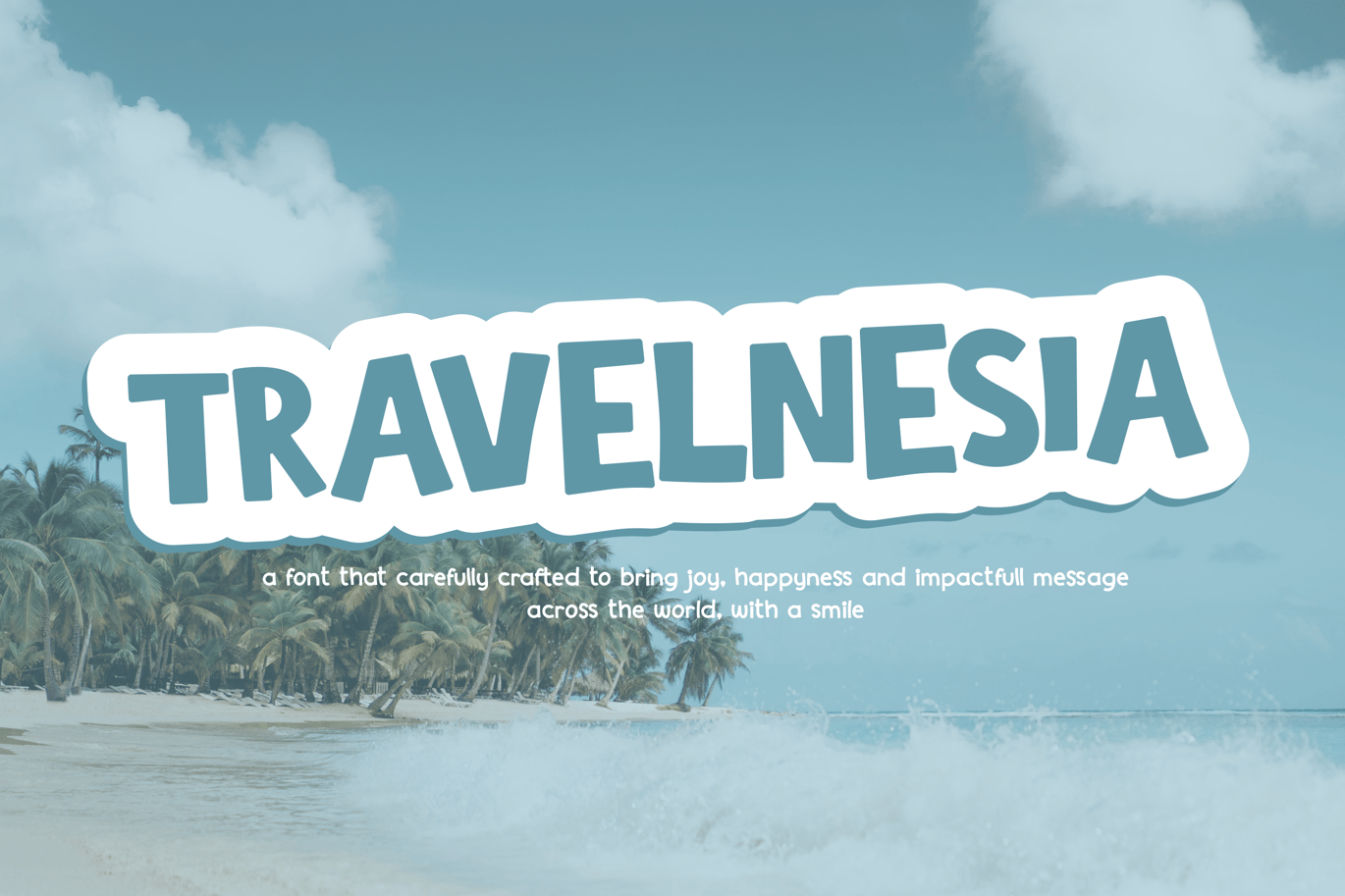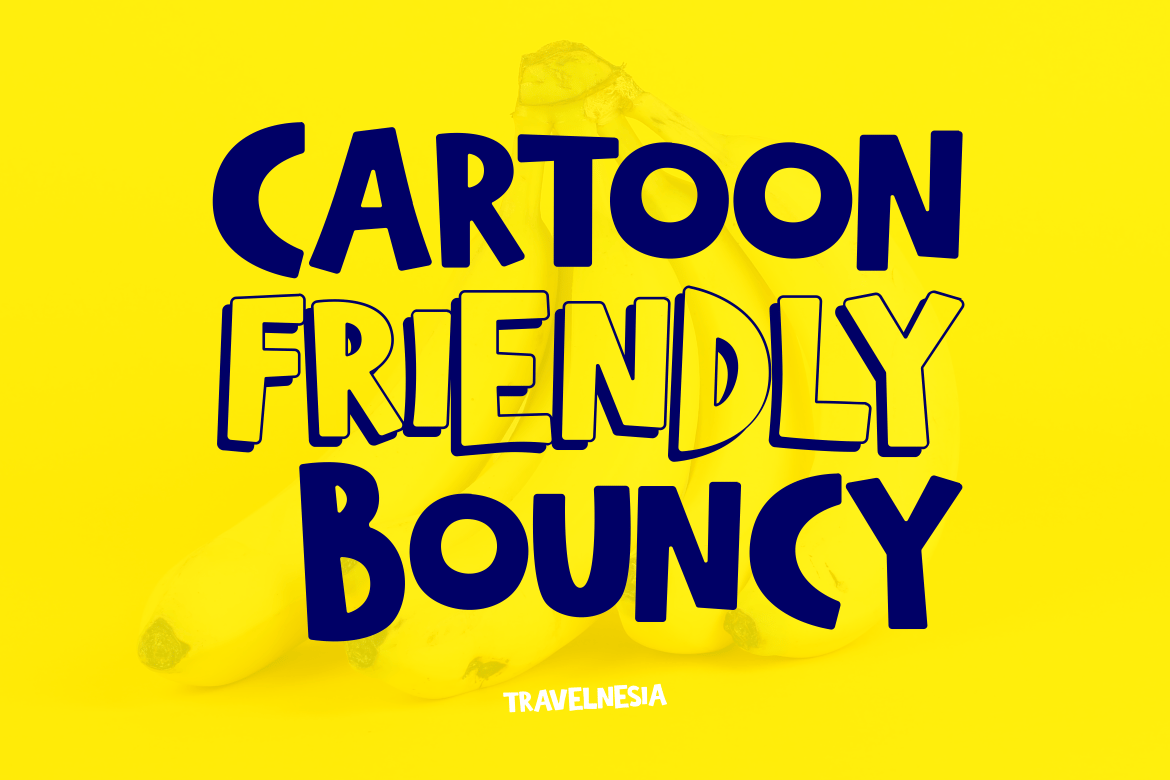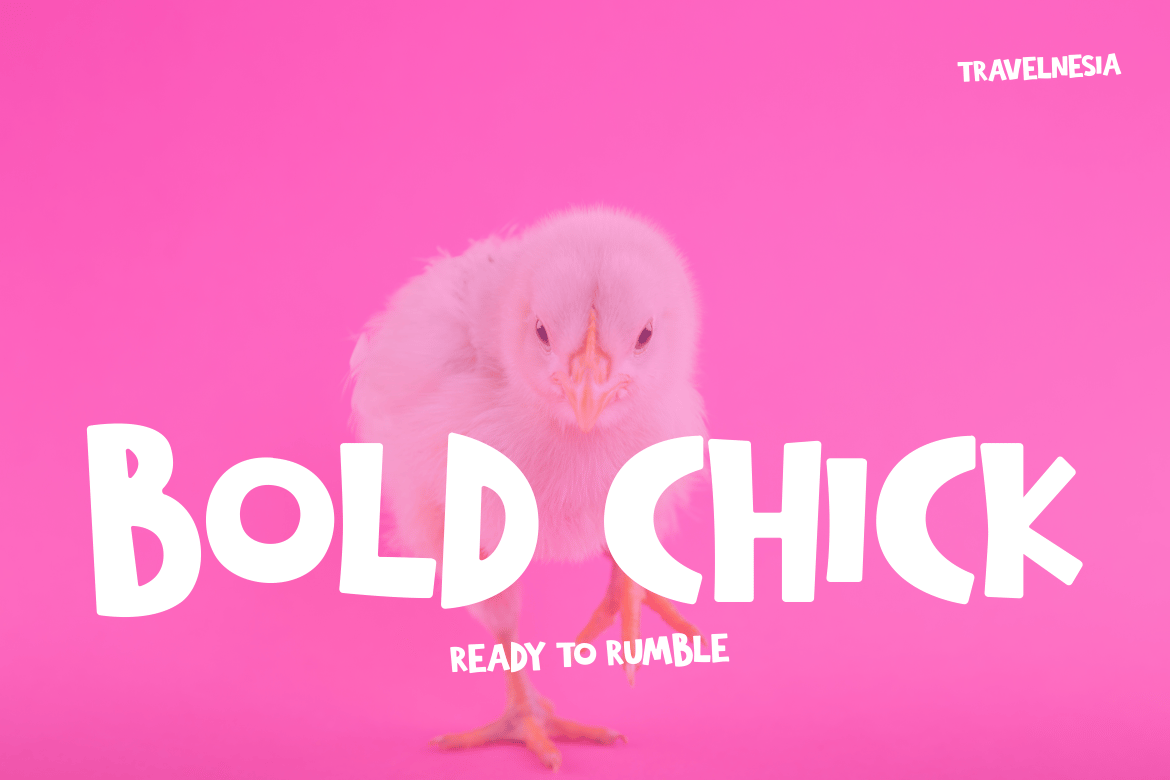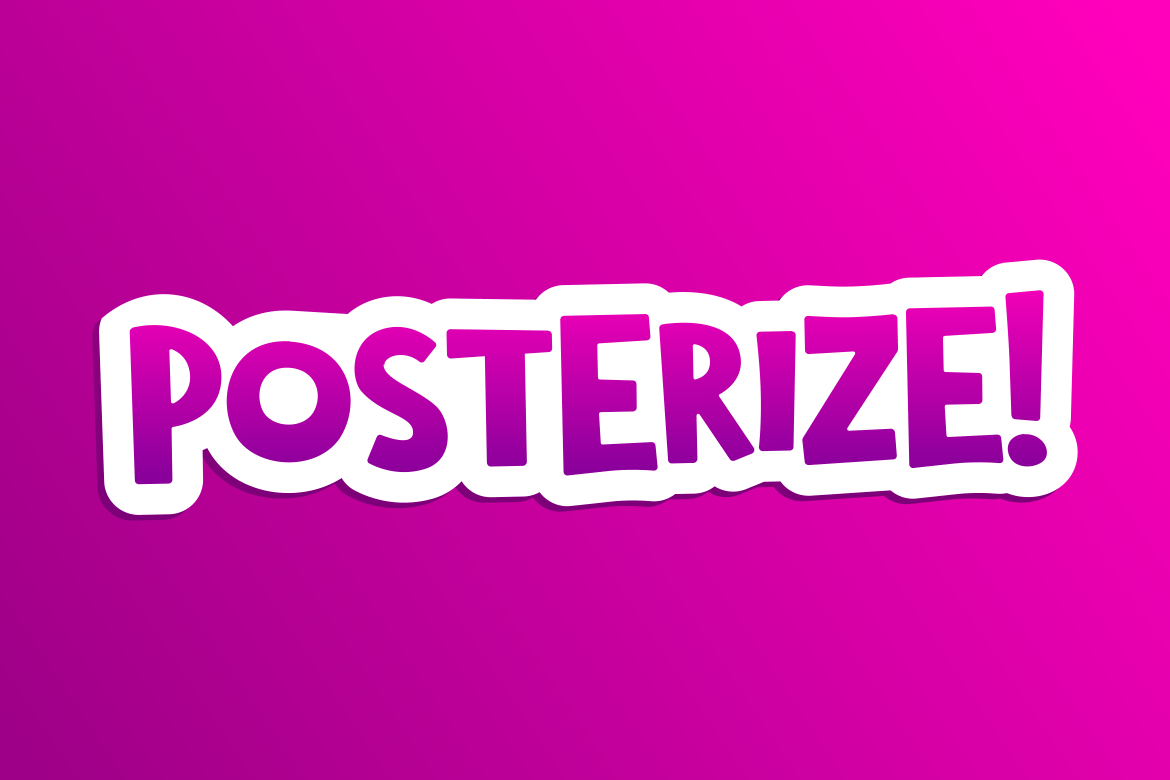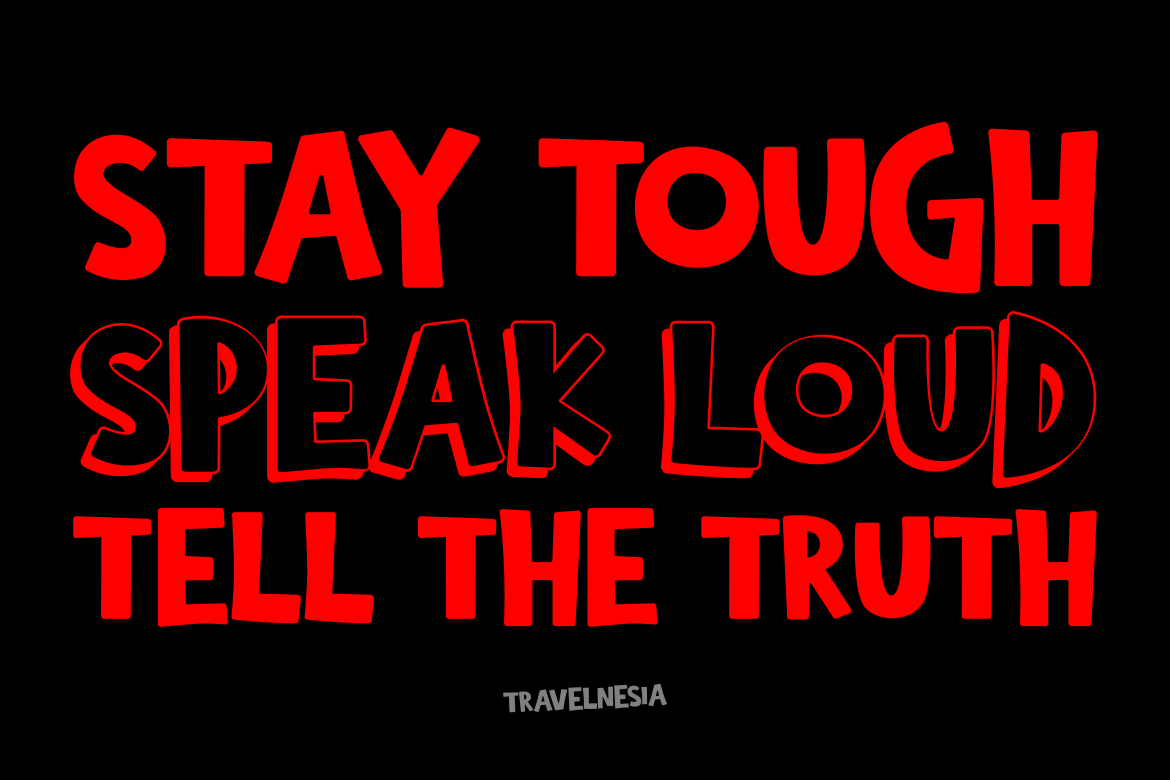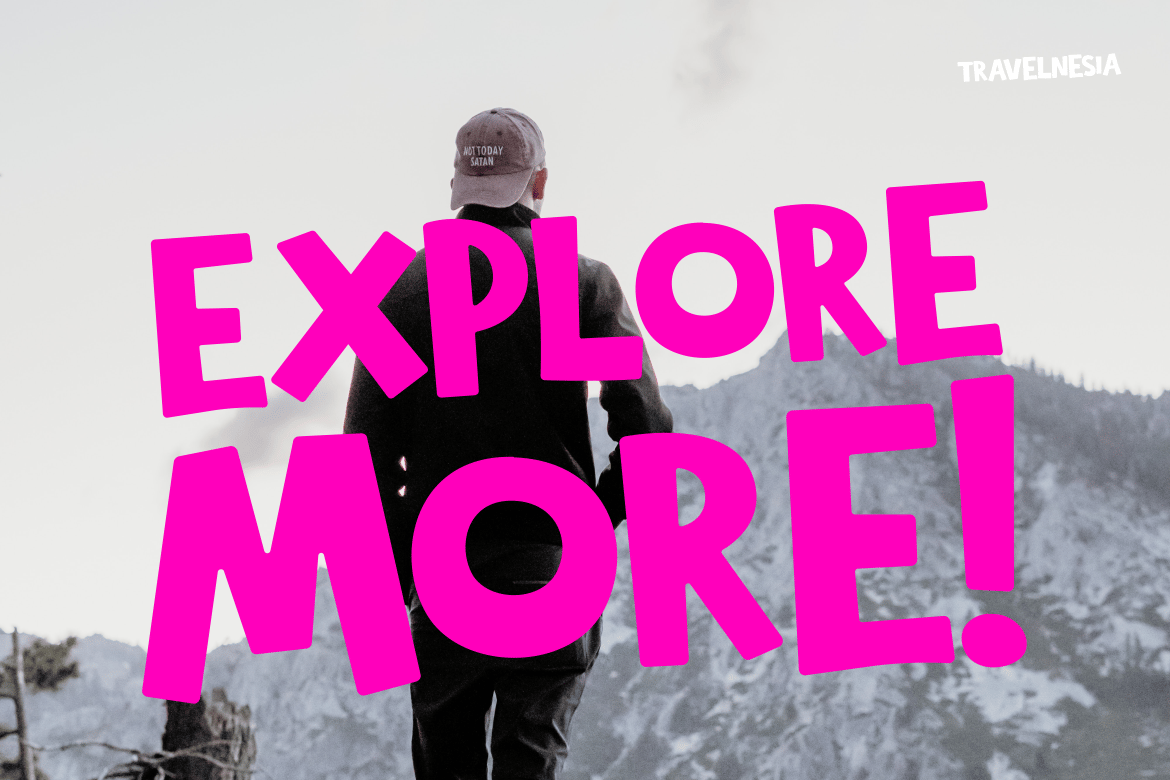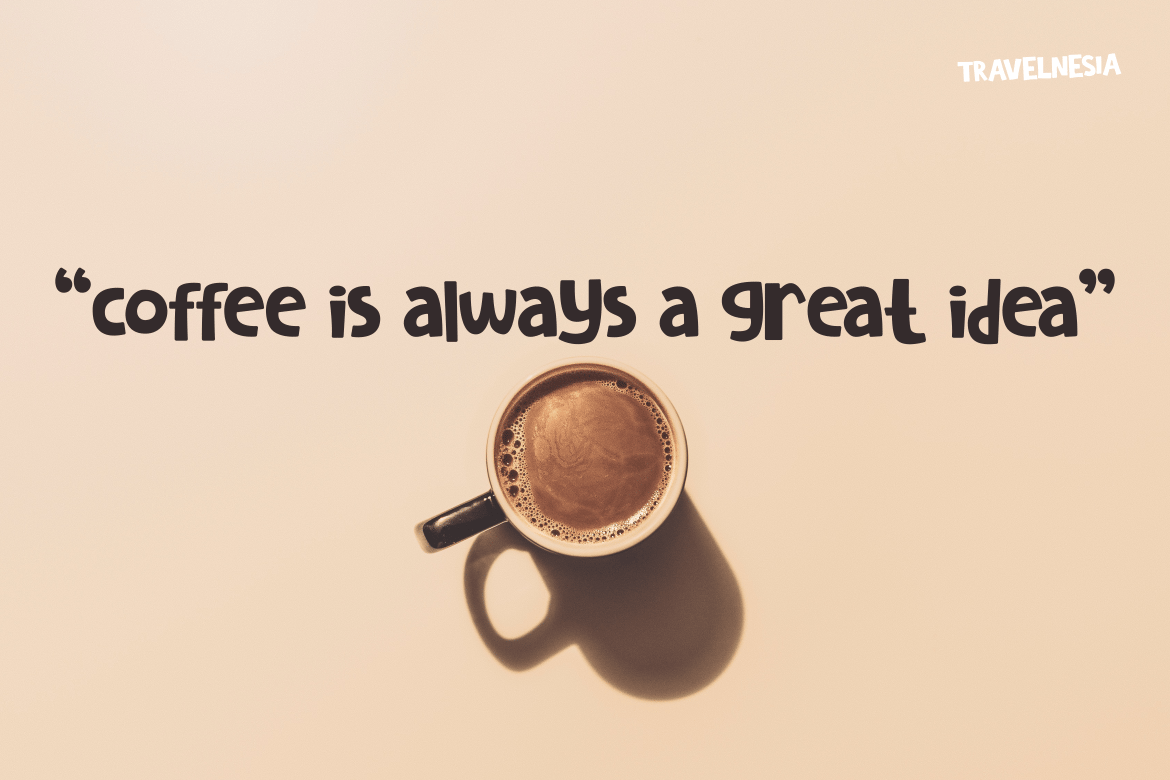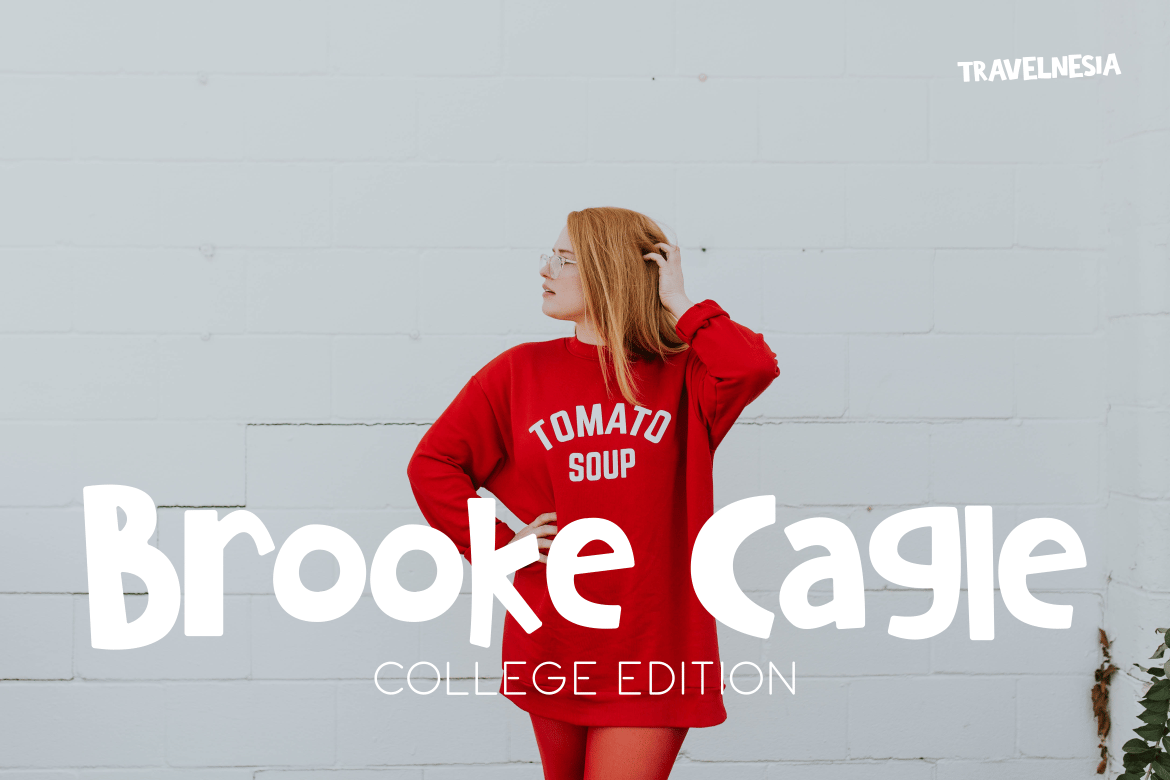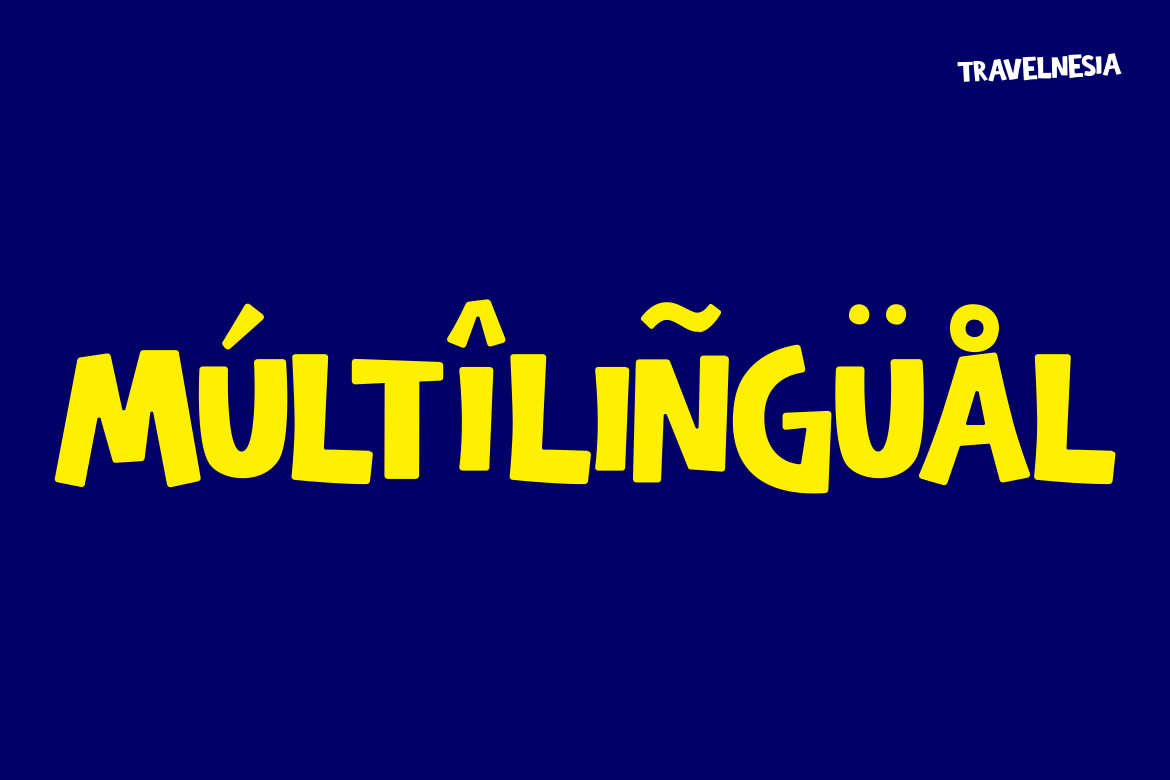
TRAVELNESIA – Fun Cartoony Font
TRAVELNESIA – fun cartoony font
With cartoon, rounded corner, and bouncy baseline, Travelnesia will give your project a bold statement, but still bring a lot of smile.
Perfect for travel poster, t-shirt design, postcard, website header, food and beverage label, and many more.
It also comes in 2 styles, regular and shadow.